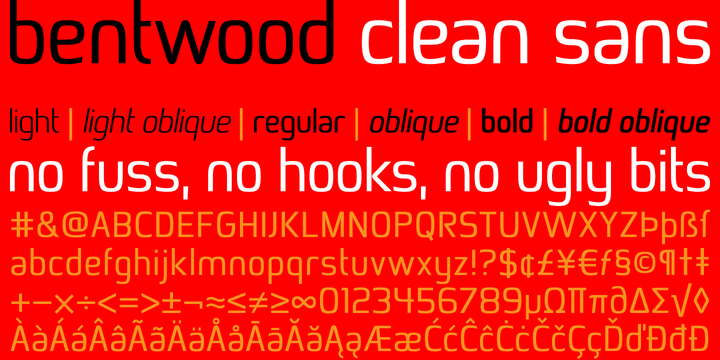
This font takes its name and the overall shape from modern bentwood furniture, namely Scandinavian designs since the 1940s. The curved corners of the letterforms are practically hyperbolic, to convey the tension and strength of the bent plywood. These curves are meant to appear more dynamic than circular or elliptical segments of traditional sans serif fonts.
The letterforms are simplified, without extra corners, stems, connections or hooks, yet remain legible at any size. More…